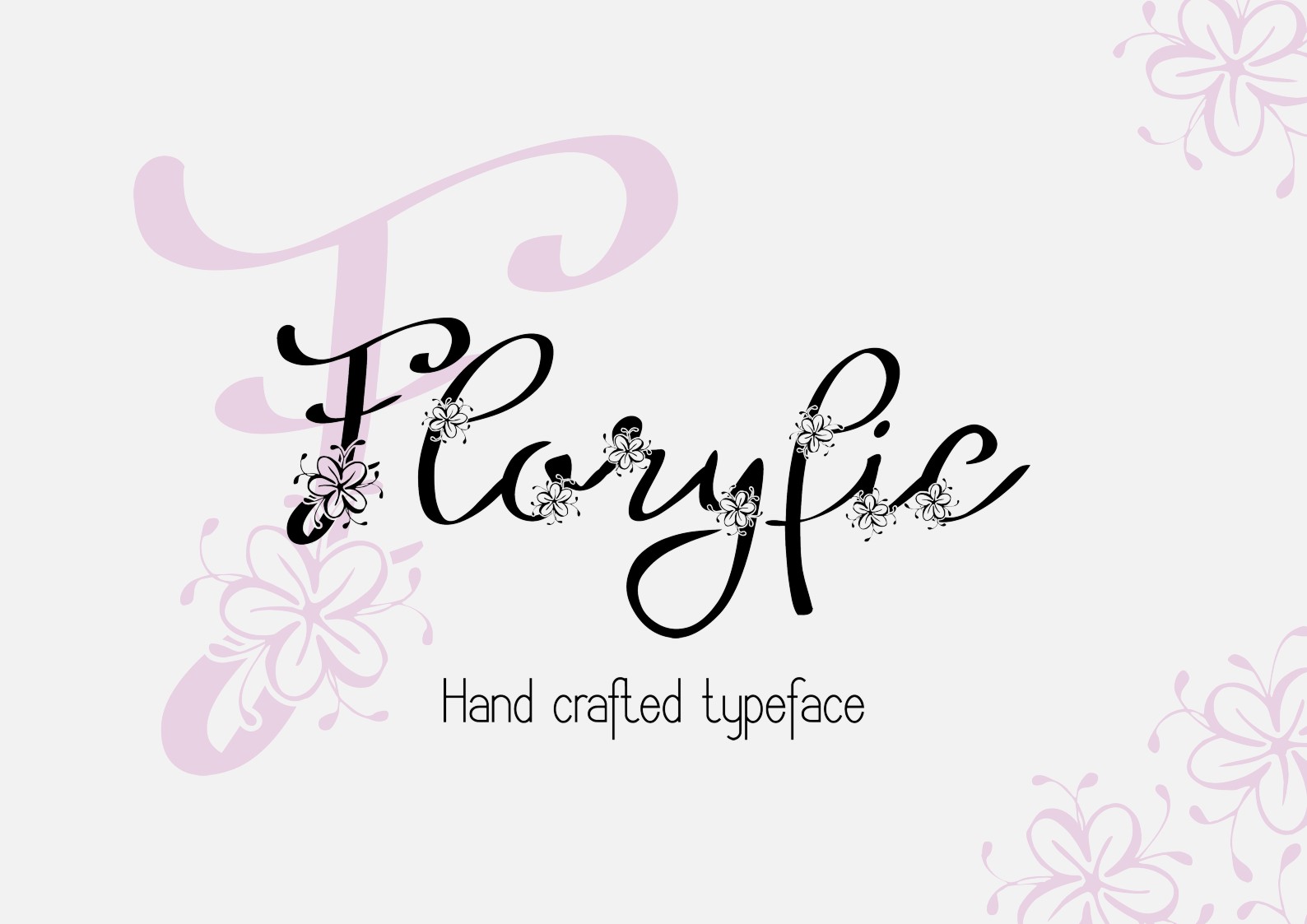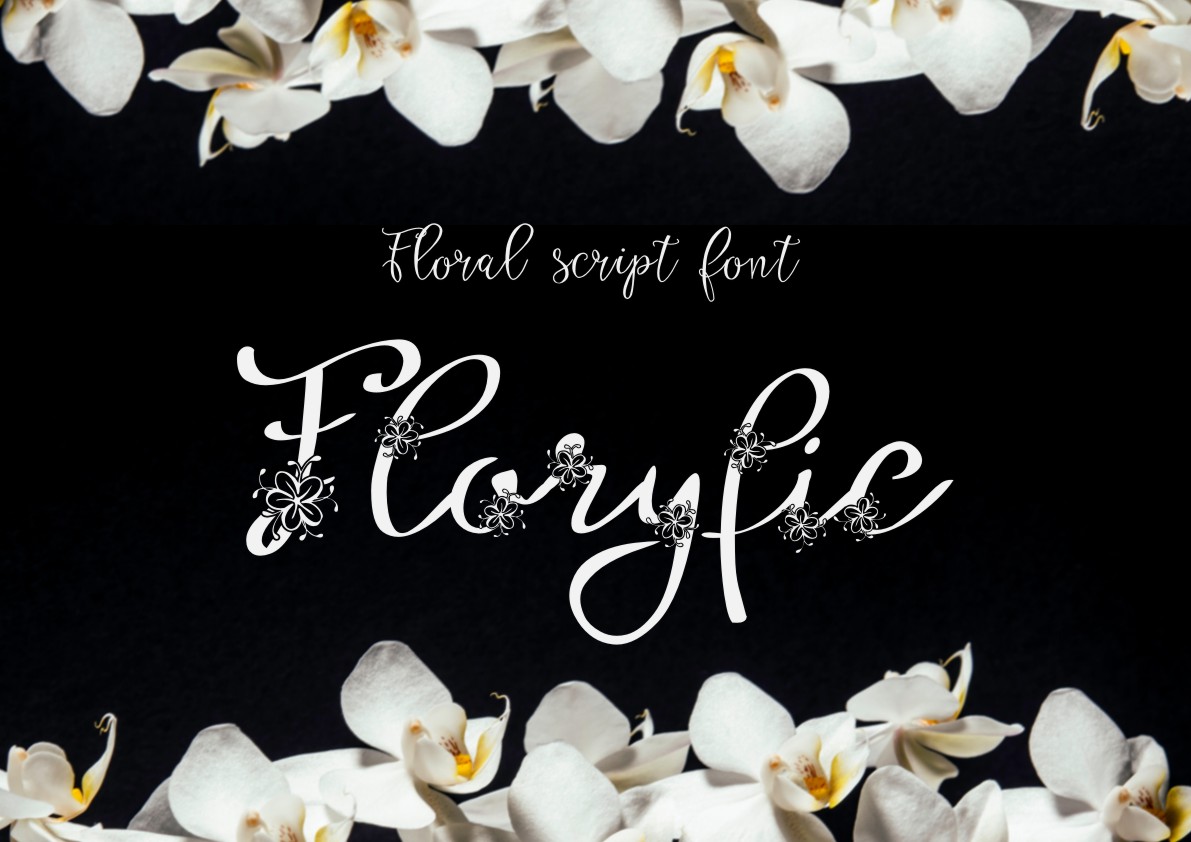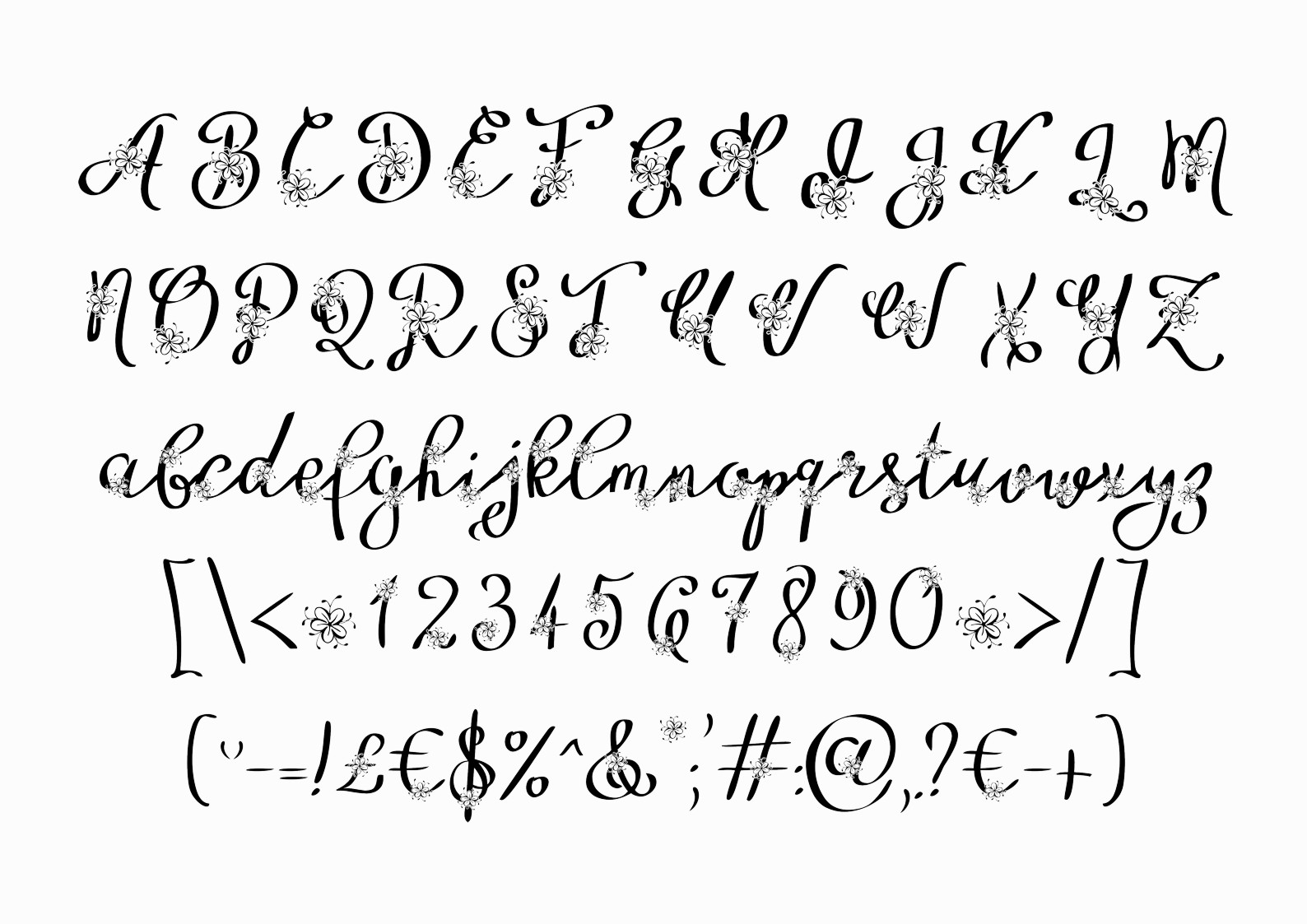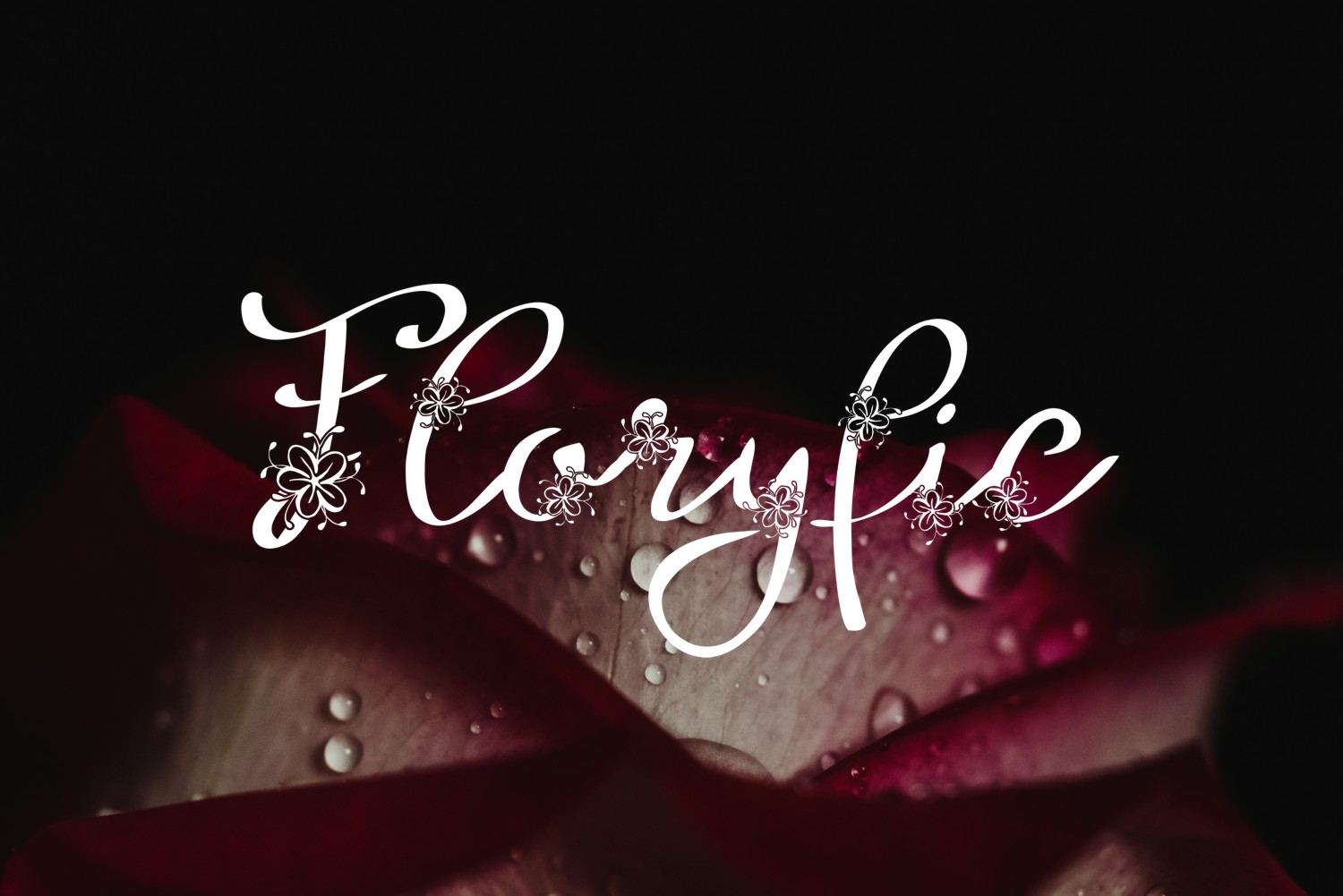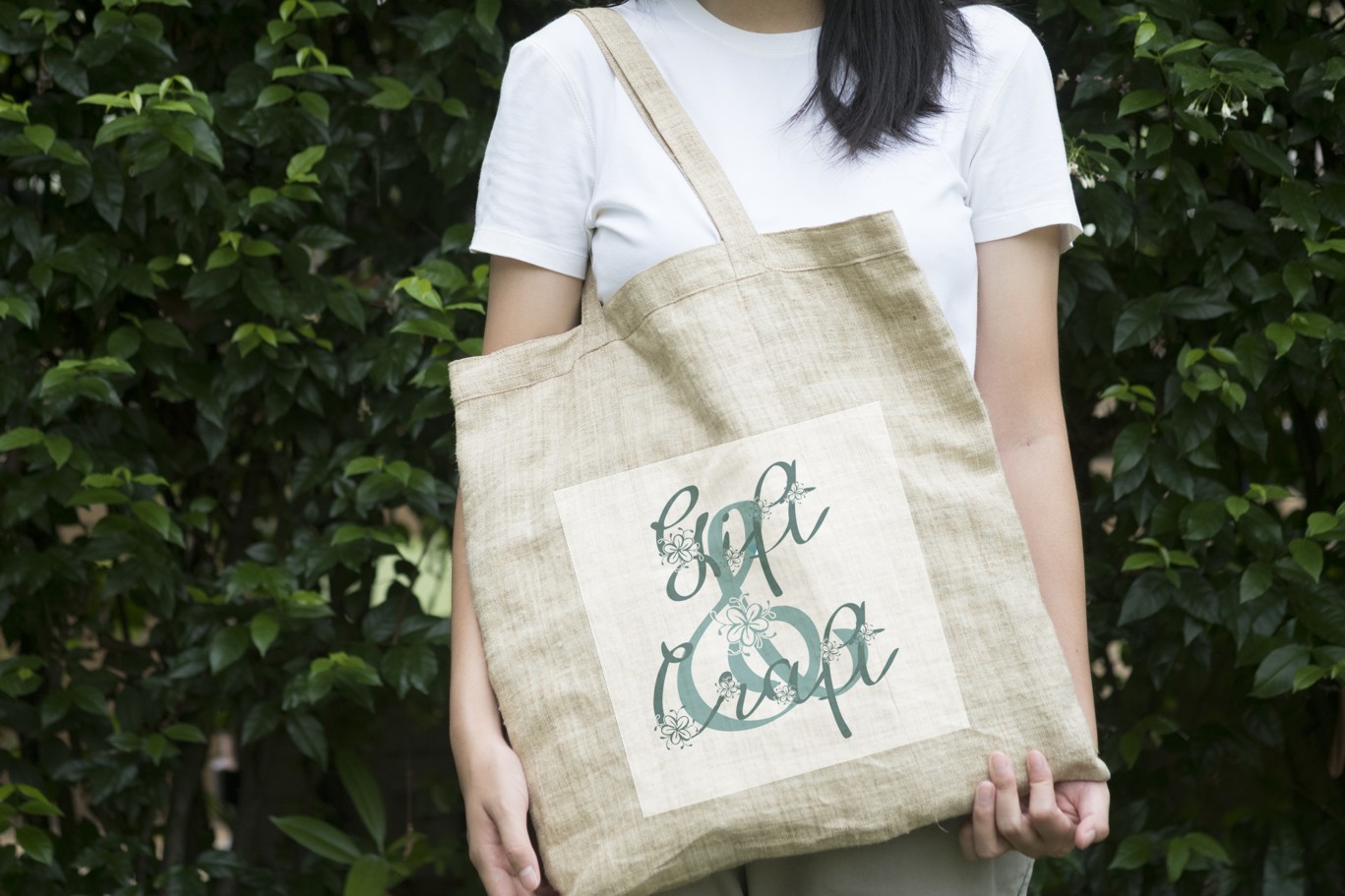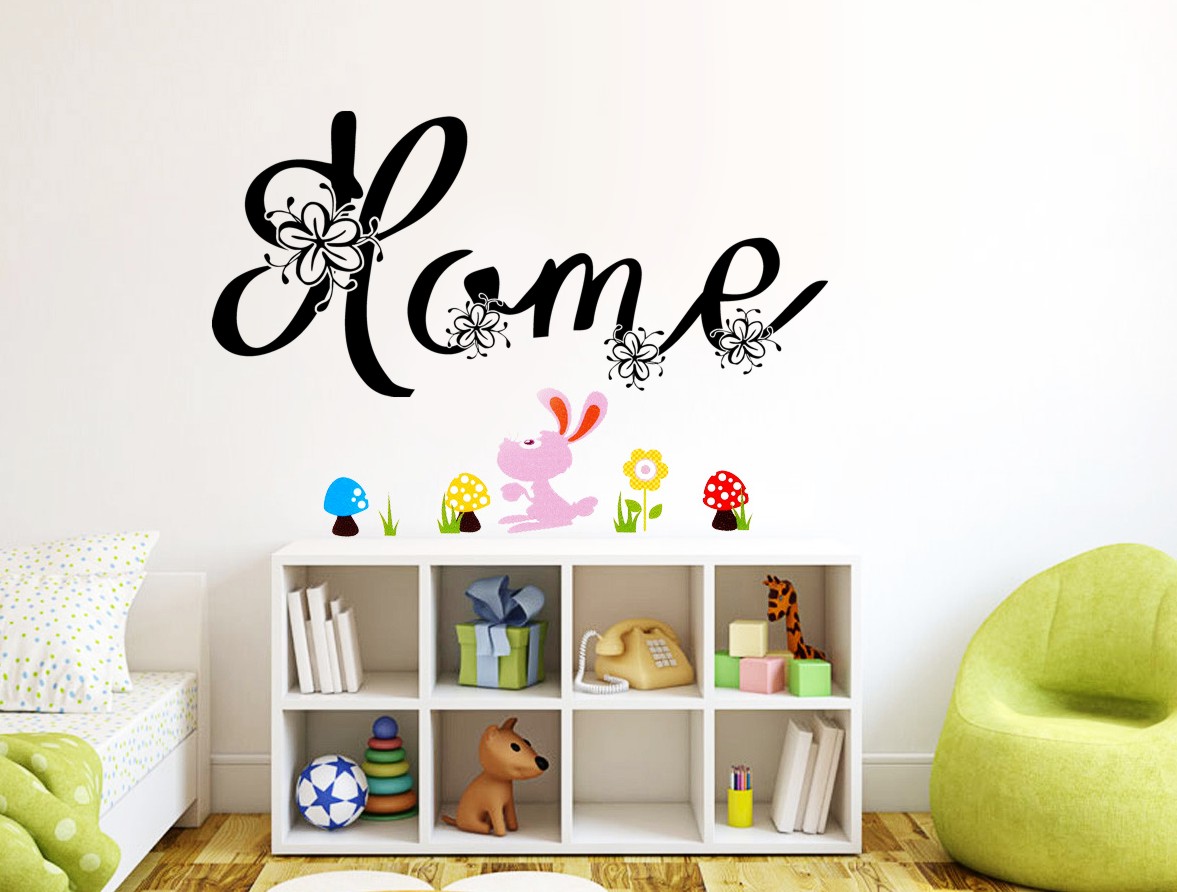
Floryfic Font
About Floryfic Font
Floryfic script is a stunning font. Each character is decorated with delicate floral elements, giving it a unique look & feel.